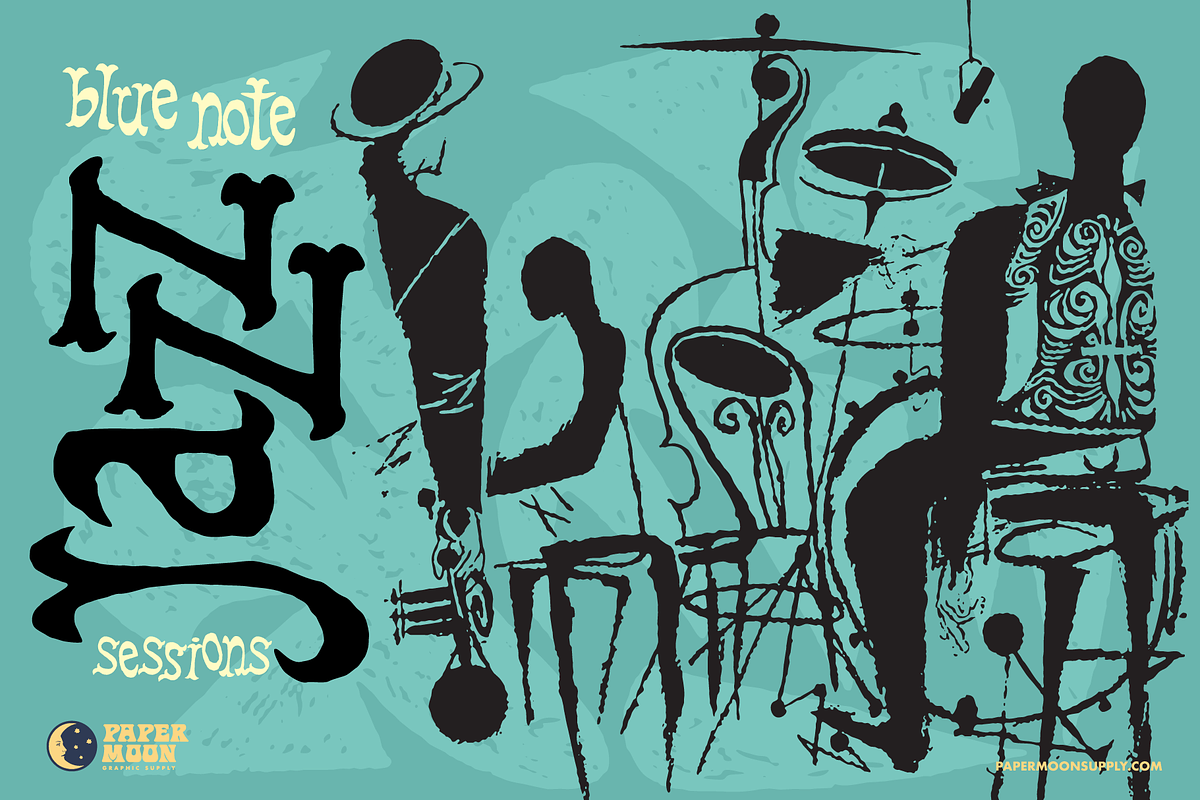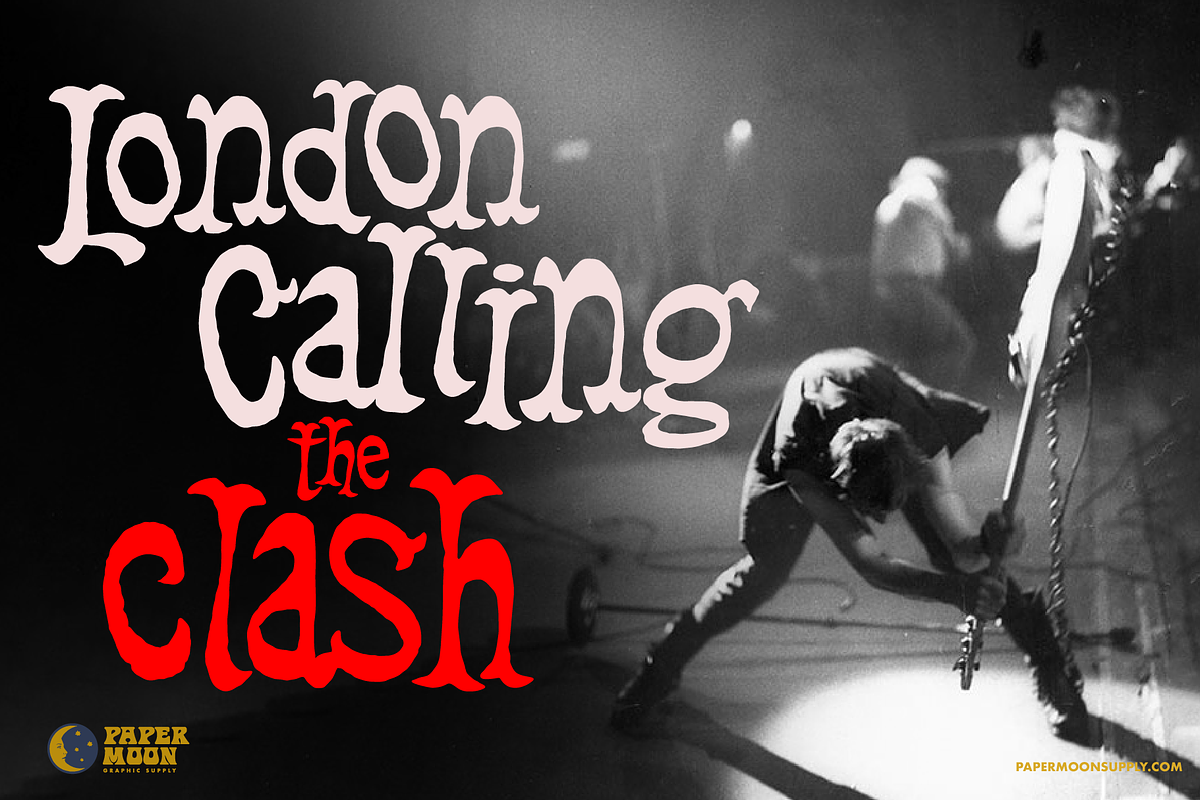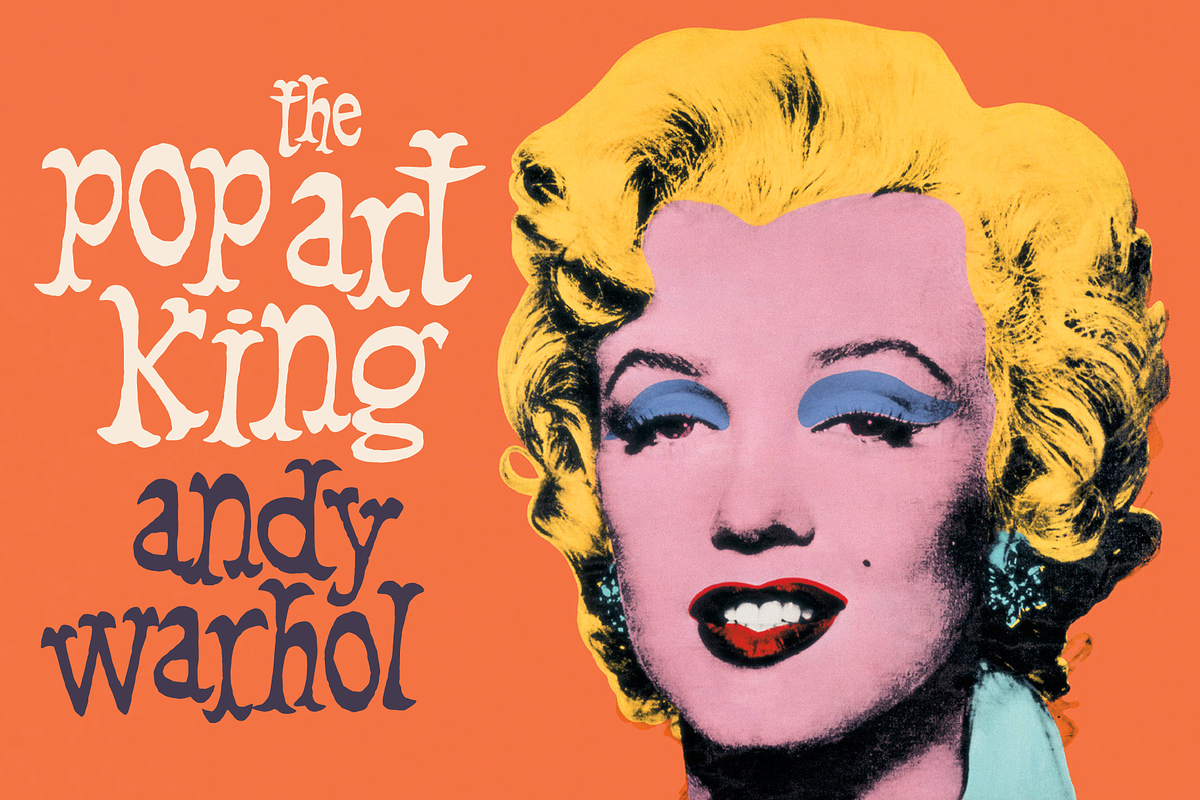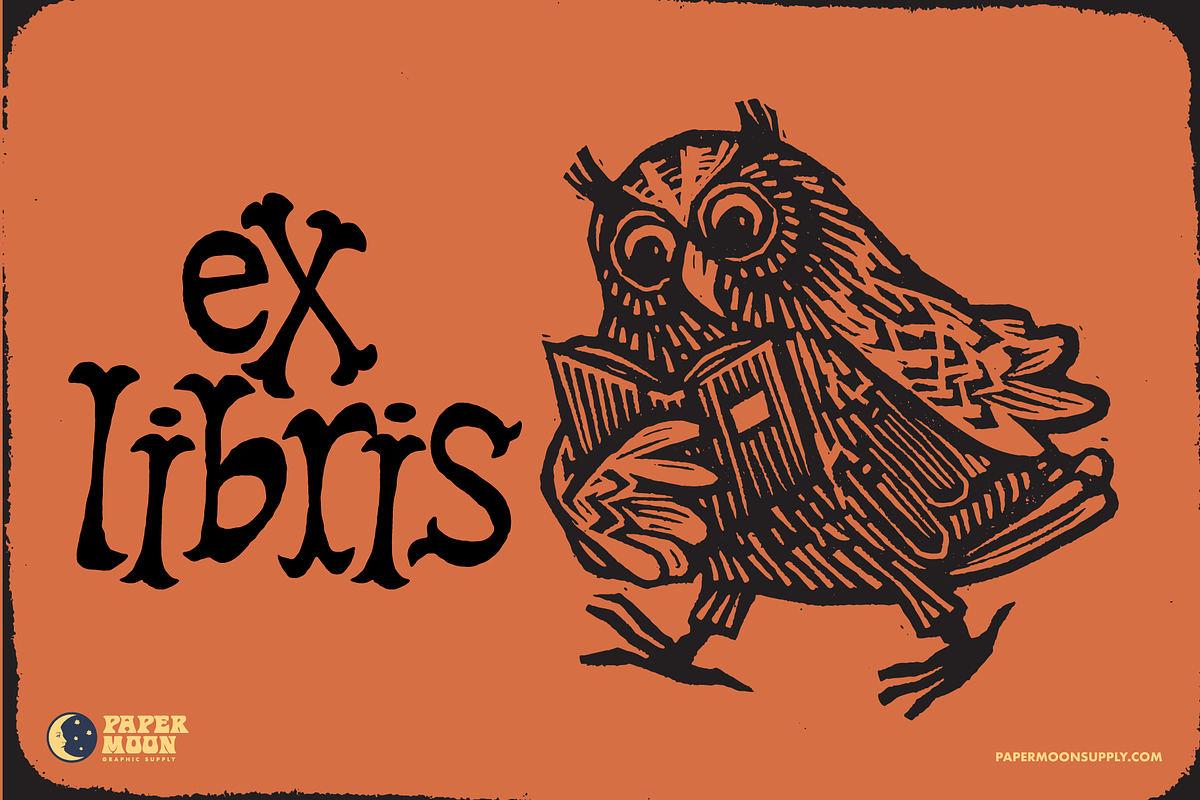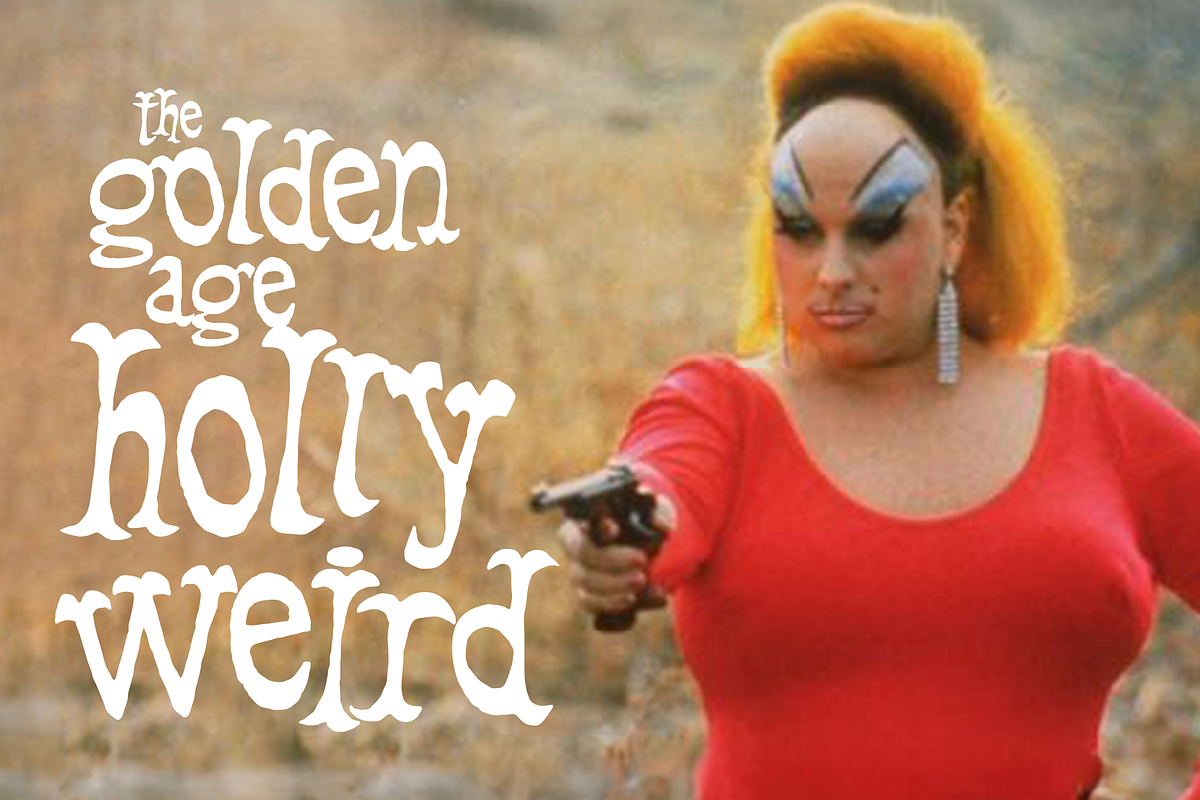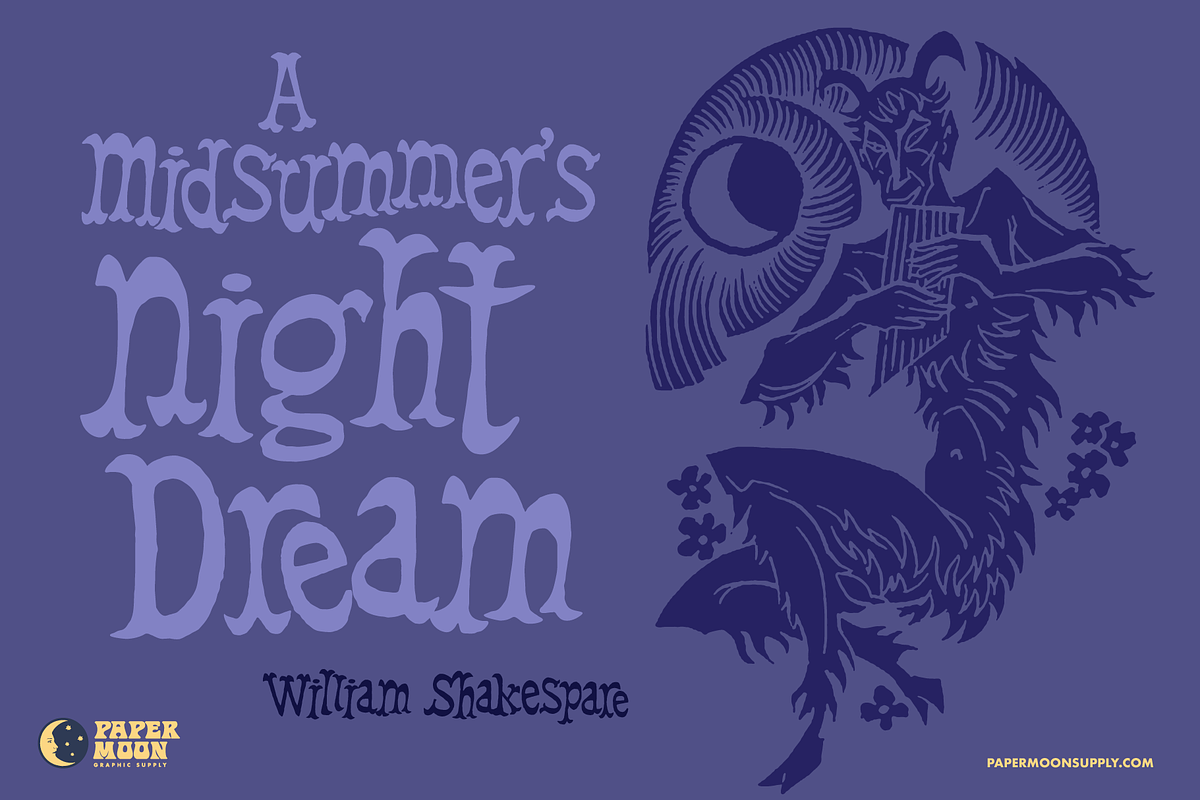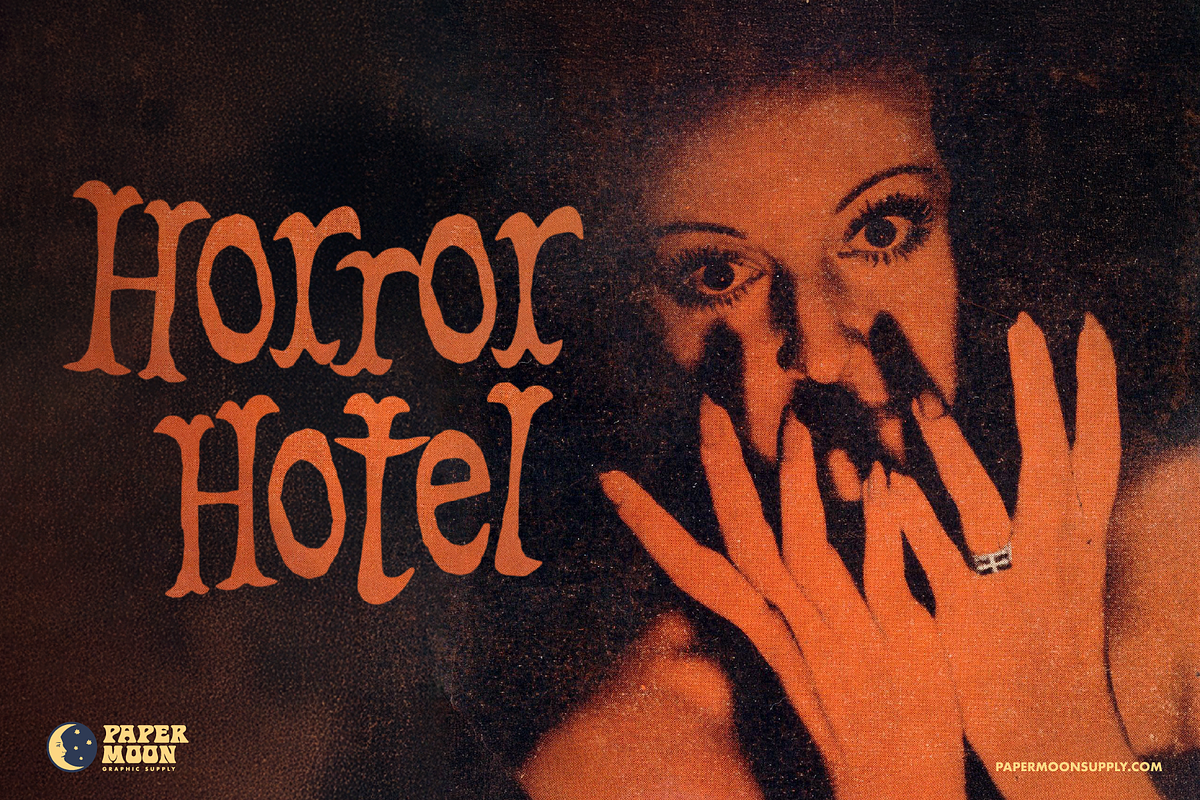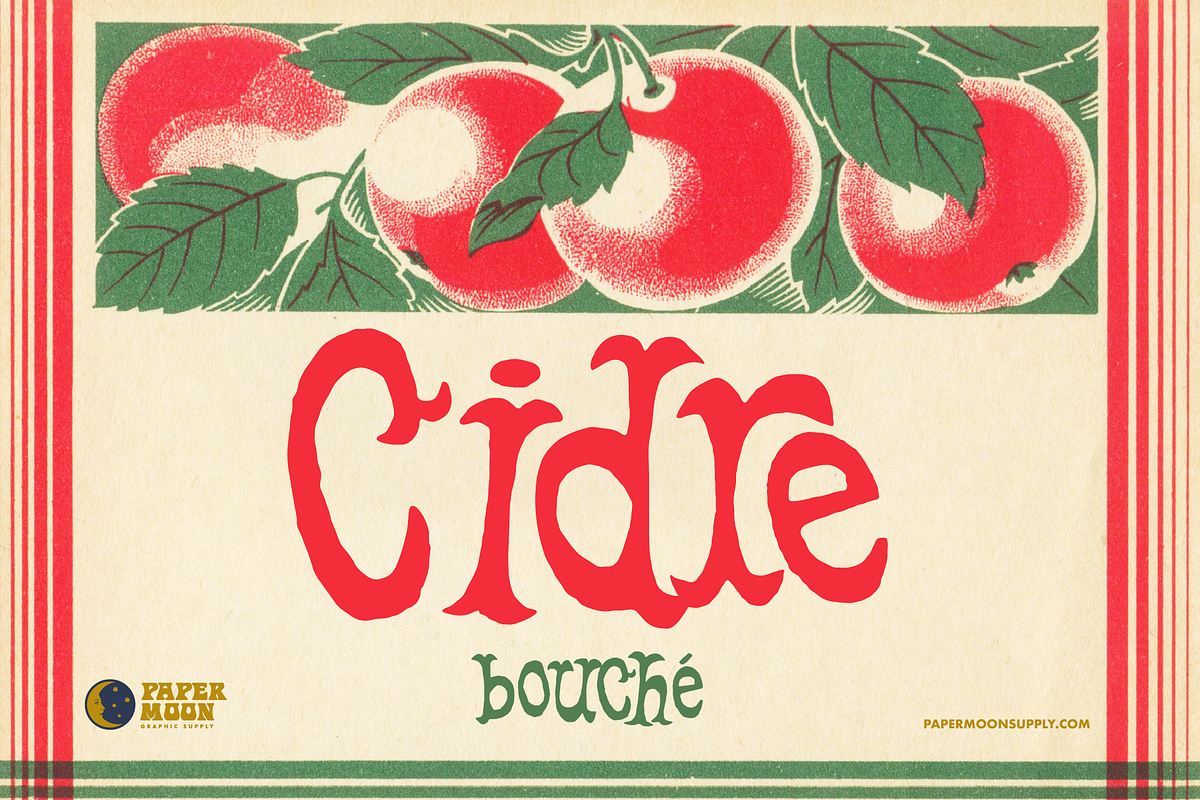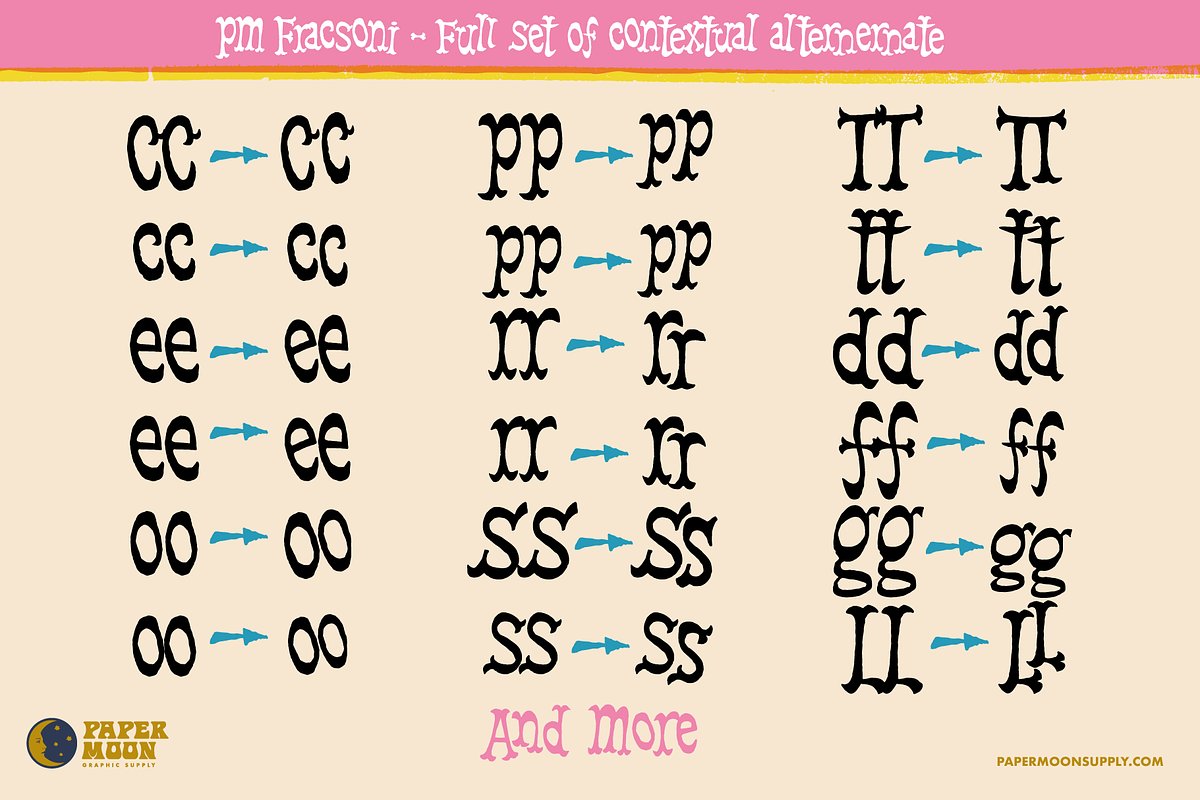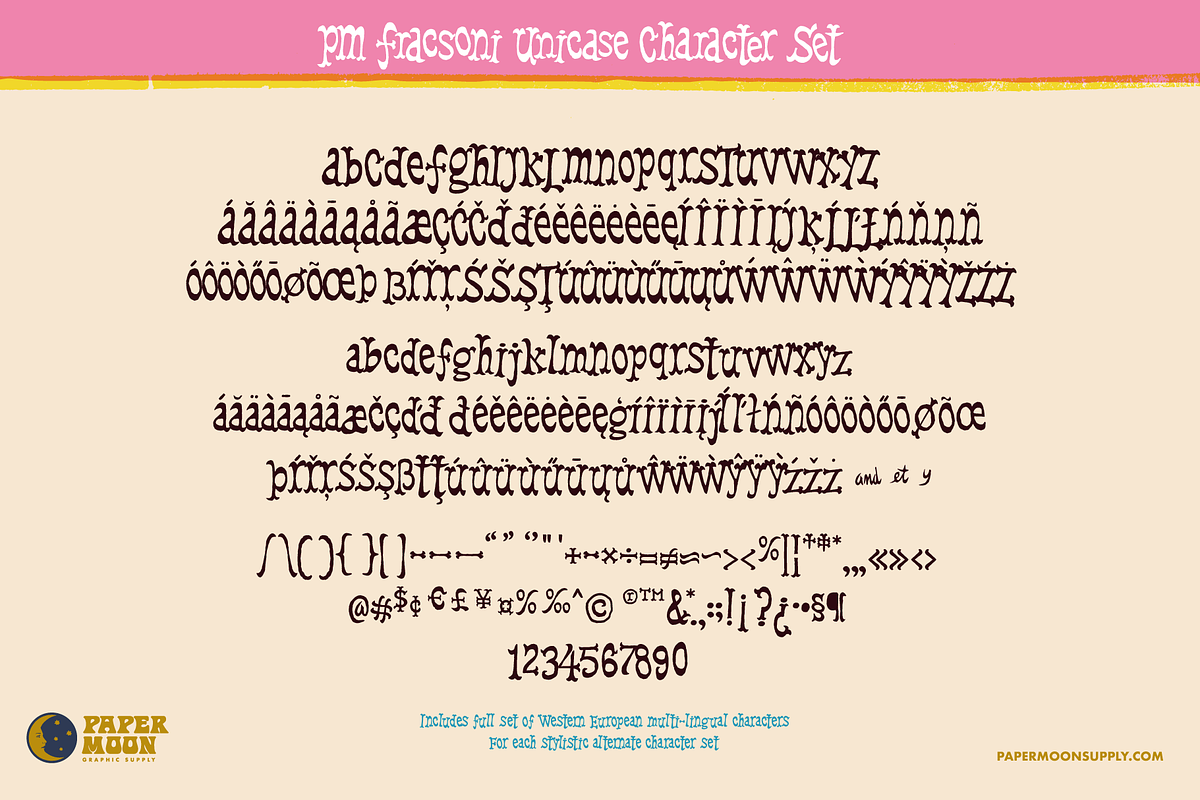
PM Frasconi Midcentury Woodcut Font
PM Frasconi
A new hand-drawn font inspired by the mid-century modern woodcut lettering of illustrator Antonio Frasconi.
- Two versions: Upper and lowercase & Unicase
- Over 400 ligatures and stylistic alternates
- Contextual alternates to avoid consecutive letter repeats
- Complete alphabet, number, and punctuation sets
PM Frasconi was developed by award-winning illustrator and designer Scott Banks.